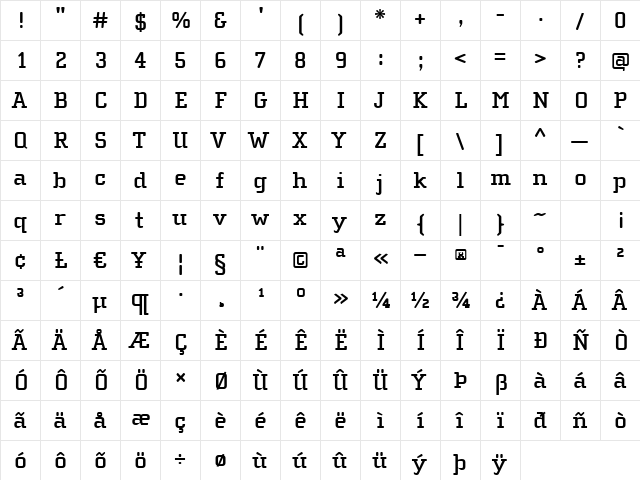
ChollaSlabBold Bold Font Preview
ChollaSlabBold Bold
ChollaSlabBold Bold Font Details
| Foundry | Emigre |
| Designer | Sibylle Hagmann |
Design Context for ChollaSlabBold Typeface
ChollaSlabBold features prominent, blocky serifs that give it a confident, grounded presence — equally at home in editorial settings and bold branding work. Its bold stroke weight gives it real presence on the page.
Works well in editorial design, news publishing, impactful branding, and poster typography.
Pro Tip: Try ChollaSlabBold set tight in headlines for a classic editorial feel. Its slab serifs create strong horizontal rhythm that anchors a page layout.